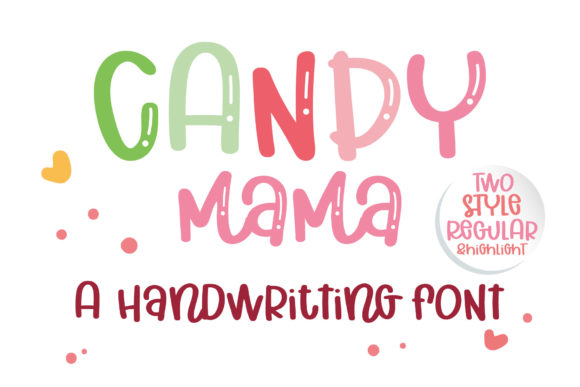
Journey into the world of Candy Mama Font, a whimsical and playful script font that exudes charm and cheerfulness. Brimming with childlike innocence and a touch of mischief, this font will transport you to a realm of limitless imagination.
Crafted by the skilled hands of BitongType, Candy Mama Font possesses an irresistible charm that captures the essence of childhood dreams and adventures. Its playful strokes dance across the page, evoking memories of storybooks and fairy tales. Each letter is a testament to the magic and wonder that exists within the world of imagination.
Immerse yourself in the boundless creativity of Candy Mama Font, where the possibilities are endless. Let your imagination soar as you create designs that resonate with the innocent joy and boundless energy of children. It's the perfect font for children's books, whimsical posters, playful packaging, and any project that seeks to capture the magic of childhood.
With Candy Mama Font, you'll unleash a world of wonder, delight, and enchantment. Its captivating curves and charming details will captivate your audience, leaving them spellbound by the allure of this extraordinary font.